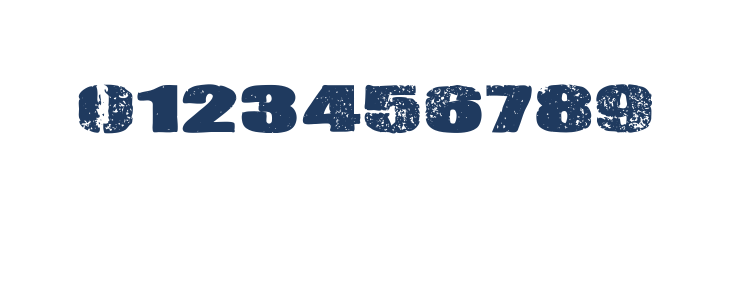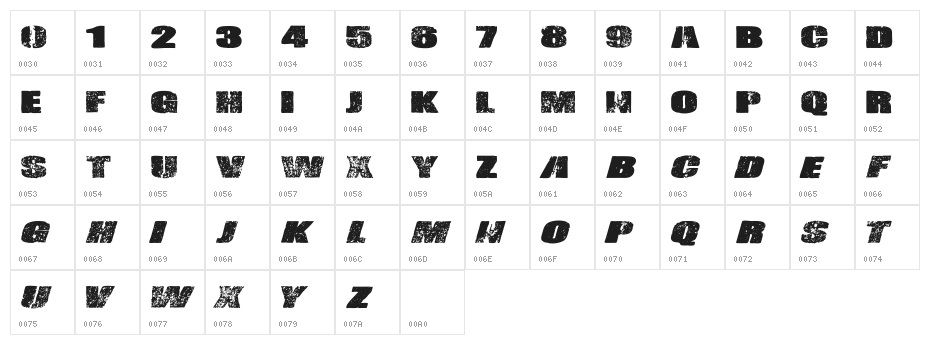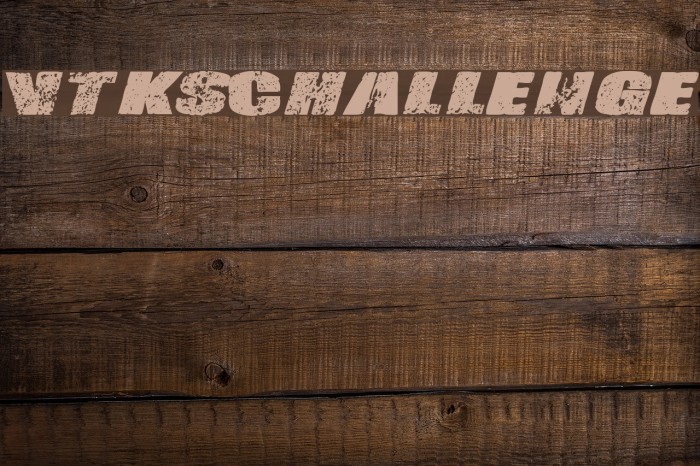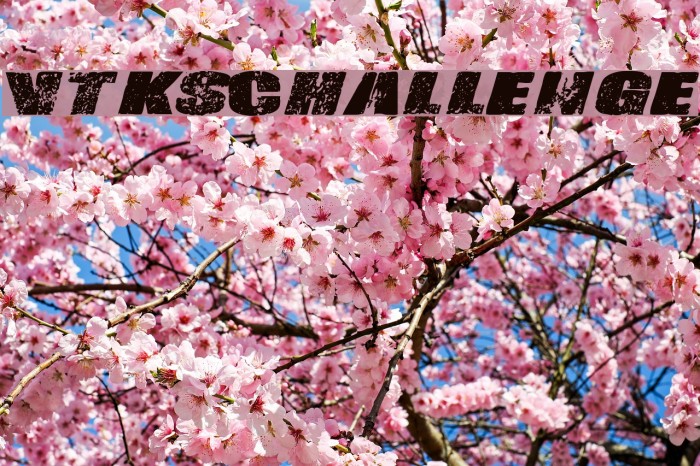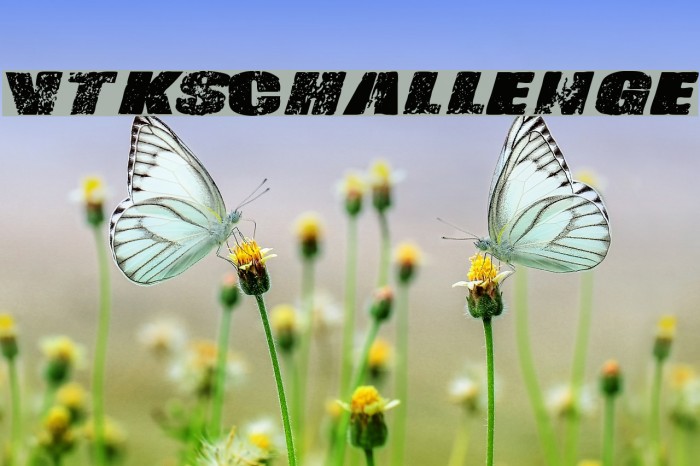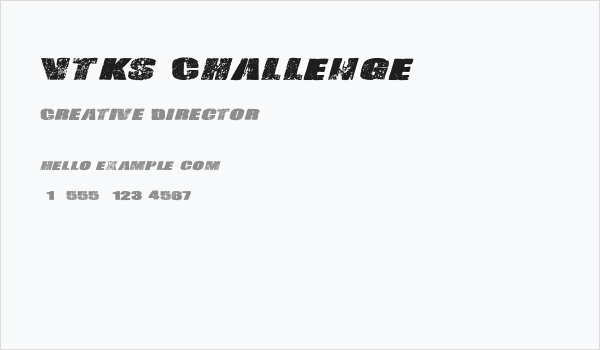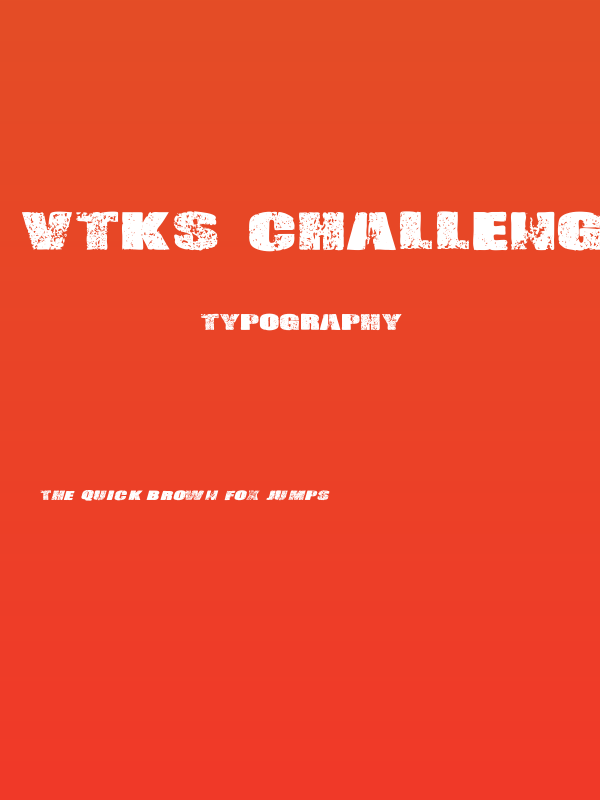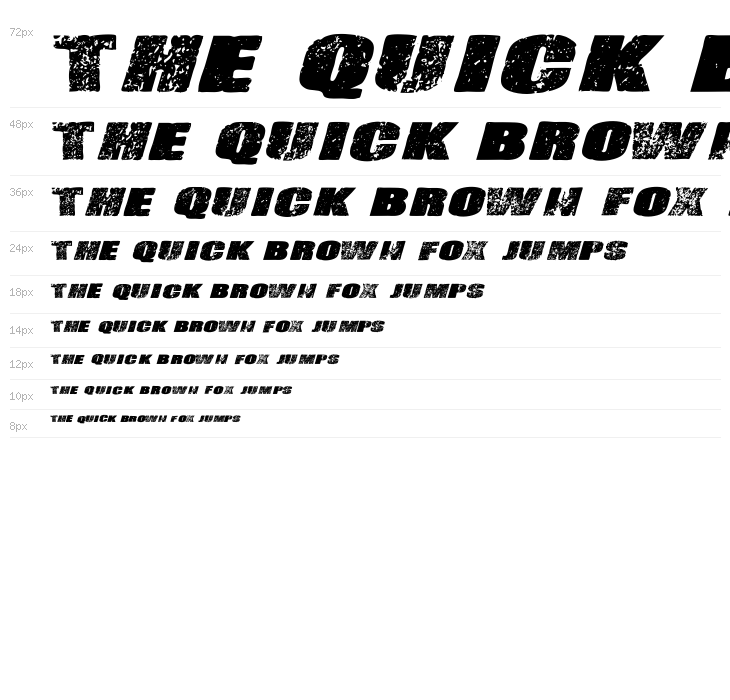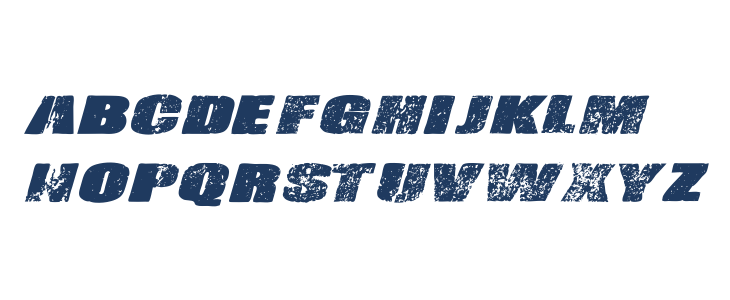
Vtks-Challenge Font
Vtks-Challenge Description
This font features a bold and distressed style, characterized by its rough, textured appearance that gives it a grunge or urban feel. The uppercase letters are prominent and impactful, making it suitable for attention-grabbing designs. The numbers and special characters maintain the same distressed aesthetic, ensuring consistency across all characters. The font's boldness and unique texture make it ideal for projects that require a strong visual impact, such as posters, album covers, or branding for edgy or alternative brands.
| Overall Style | Grunge, Urban |
| Proposed Projects | Ideal for posters, album covers, edgy branding, and urban-themed designs. |